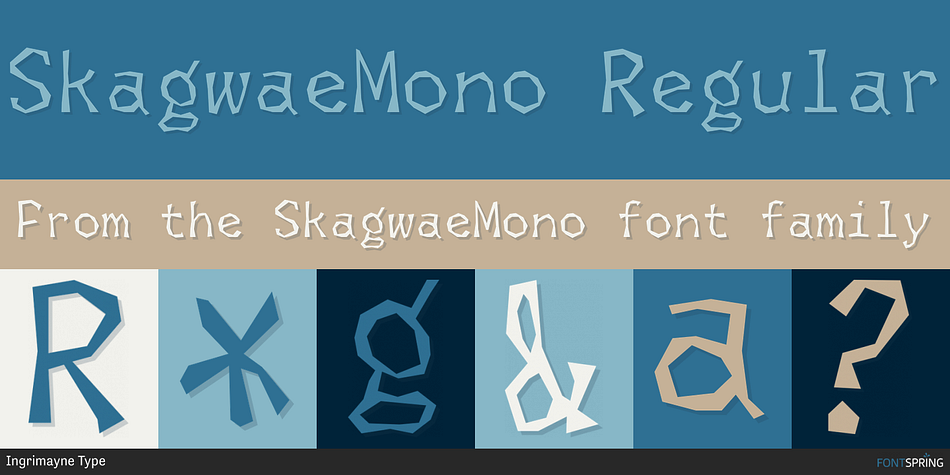
SkagwaeMono Regular
Designed by Robert Schenk, SkagwaeMono is a display sans font family. This typeface has three styles and was published by Ingrimayne Type.
The characters of Skagwae have no curves, just straight line segments. The letter shapes themselves are fairly standard, but the choppy line segments used to construct them give the fonts a crude, unfinished look that is highlighted at large point sizes. At small point sizes the fonts are surprisingly legible.
The family has three styles: SkagwaeMono-Regular,  SkagwaeMono-Bold, SkagwaeMono-Rippled. The last is a distorted version of Skagwae-Regular with squiggly lines full of curves.